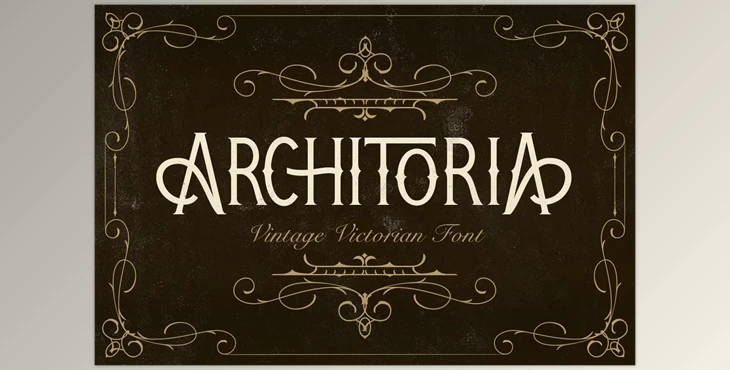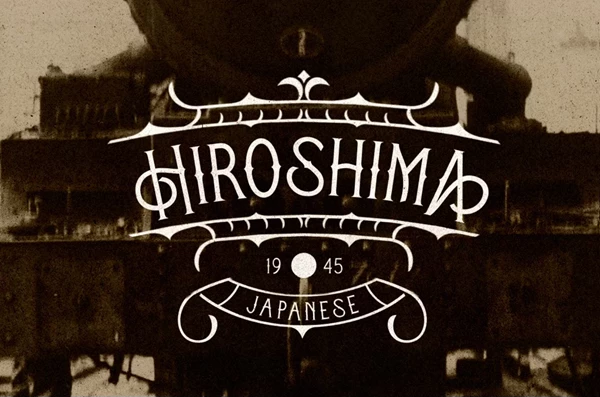
Architoria - Vintage Victorian Font: "Architoria" is a vintage Victorian-style display font designed for projects requiring a classic and aged aesthetic, such as posters, logos, and branding materials. Featuring ligatures and alternates, it offers a variety of options to enhance design creativity. Additionally, the font includes decorative lines accessible through OpenType features and the glyphs panel in Adobe Photoshop/Illustrator. Users can easily access these features by typing an underscore followed by a number (1-6). Furthermore, Architoria supports multiple languages, ensuring versatility and usability across various design contexts.
"Architoria - Vintage Victorian Font" Samples: